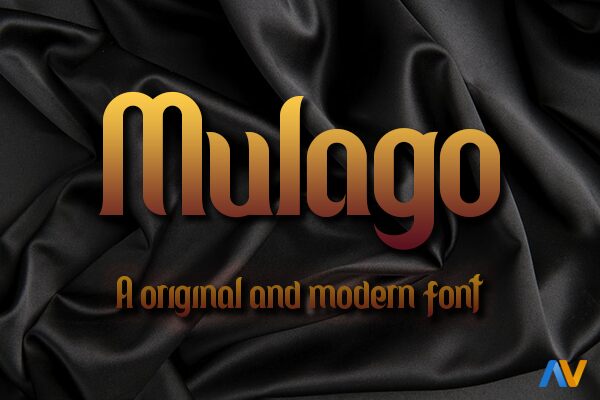
Mulago is a striking display font designed by Alberto Villanueva. Its condensed, bold form exudes a powerful, confident presence. The dramatic curves and angular terminals create a sense of dynamism, lending the font a distinctly contemporary aesthetic.
Mulago's unique character shines through in its striking letterforms, making it well-suited for headlines, branding, and eye-catching typographic treatments. Its versatility extends across a range of design applications, from editorial layouts to web interfaces, where its bold presence can command attention and convey a sense of authority.